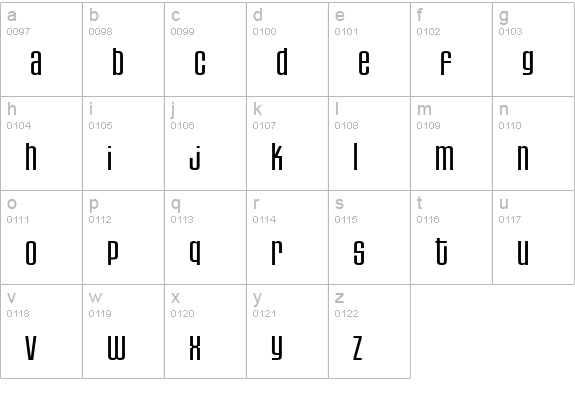
HouseGothic LightThree Font Details
HouseGothic LightThree is a stunning and versatile font that combines the elegance of traditional gothic fonts with a modern and sleek design. With its clean lines and sharp edges, this font exudes sophistication and style. Perfect for a wide range of design projects, from branding to editorial design, HouseGothic LightThree is sure to make a bold statement. The best part? HouseGothic LightThree is available for free download at FontsMarket.com. That's right, you can add this beautiful font to your collection without spending a penny. Don't miss out on this opportunity to elevate your designs with HouseGothic LightThree. Download it today and let your creativity soar!